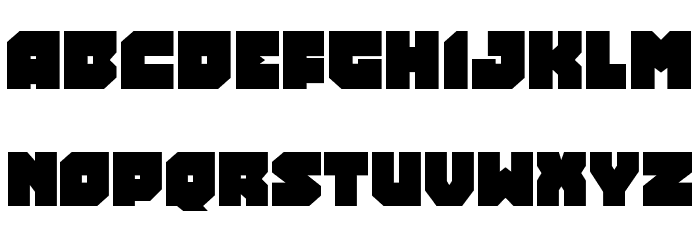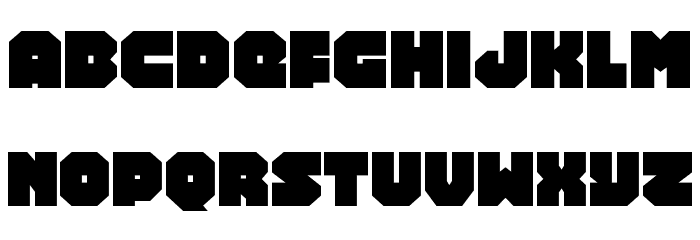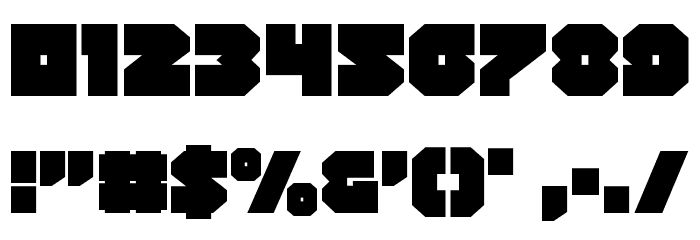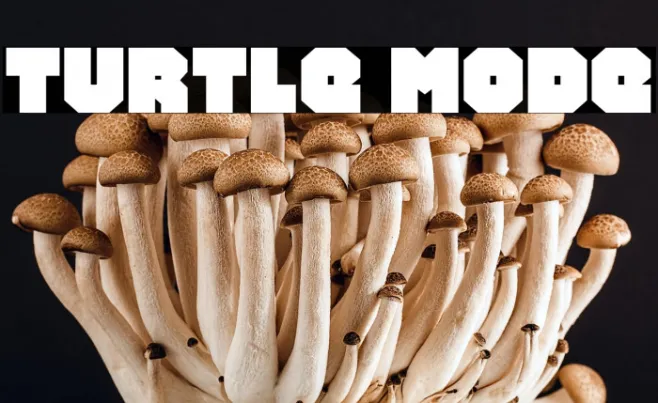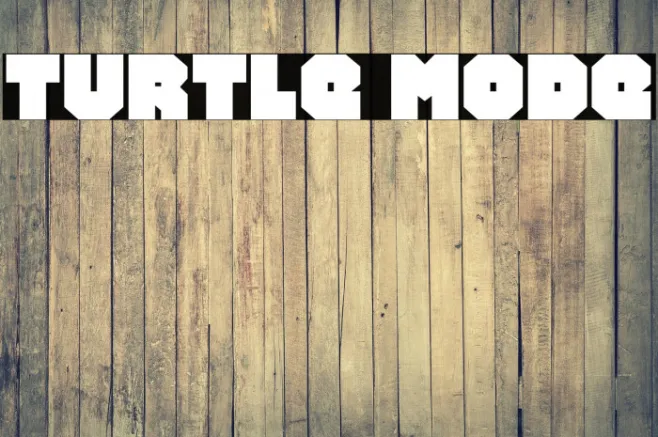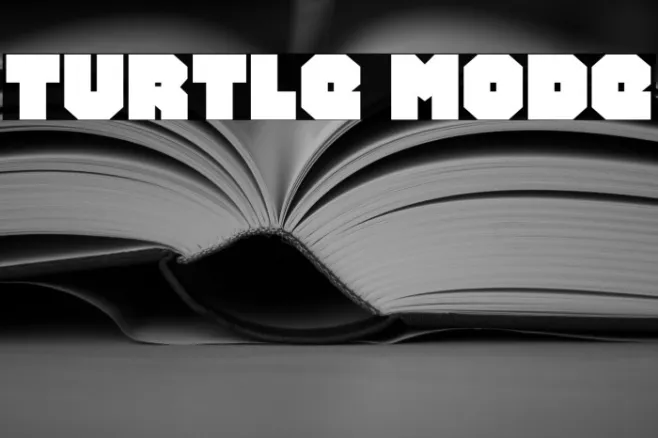
Turtle Mode Font
This font features a bold, geometric design with a strong, angular appearance. The characters are constructed with thick, block-like shapes, giving them a robust and impactful presence. The uppercase and lowercase letters maintain a consistent style, with sharp edges and a uniform thickness throughout. Numbers and special characters follow the same design principles, ensuring a cohesive look across all elements. The font's unique style makes it stand out, ideal for projects that require a bold and assertive typeface.
Bold, geometric font with thick, angular shapes.
- Proposed Projects: Ideal for posters, headlines, logos, and any design requiring a strong visual impact.